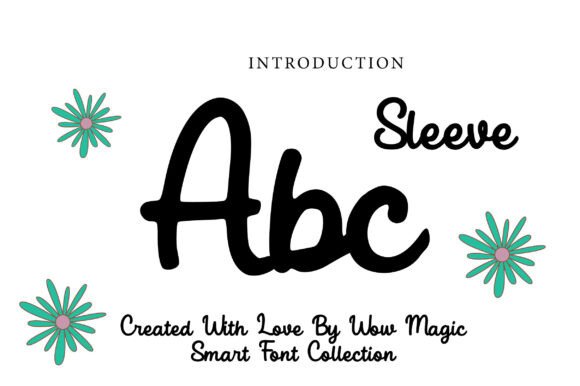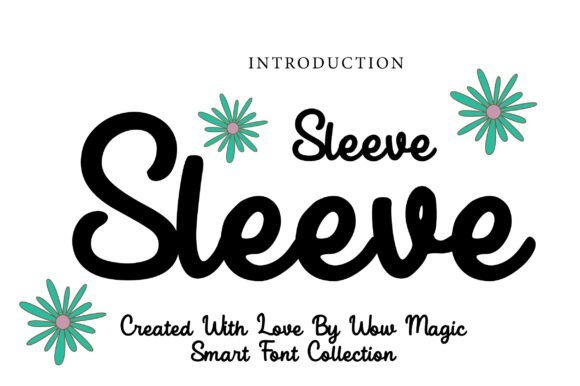
Introduction to Sleeve Font
Sleeve is a smooth and stylish handwritten script font designed with elegant curves and natural flowing strokes.
The fluid rhythm and expressive swashes give this font a signature-style appearance, making it perfect for branding, logos, social media graphics, packaging, invitations, quotes, and lifestyle designs Sleeve delivers a warm and artistic personality while maintaining clarity and readability.